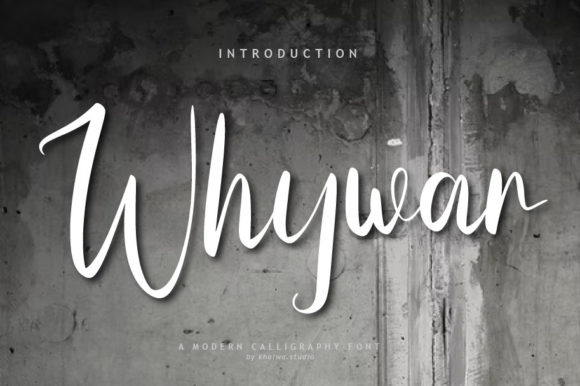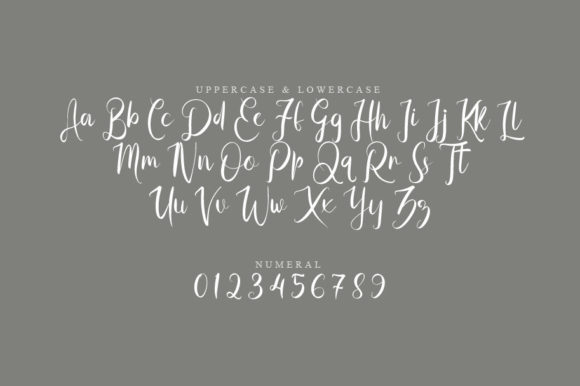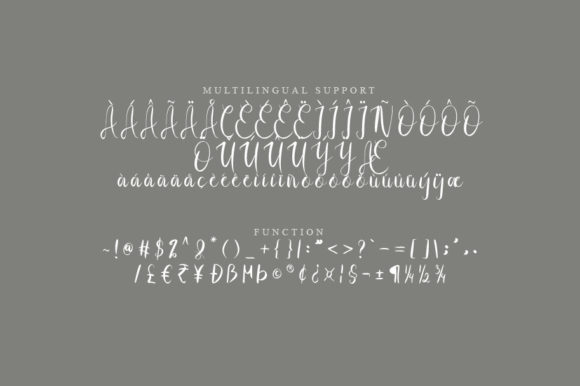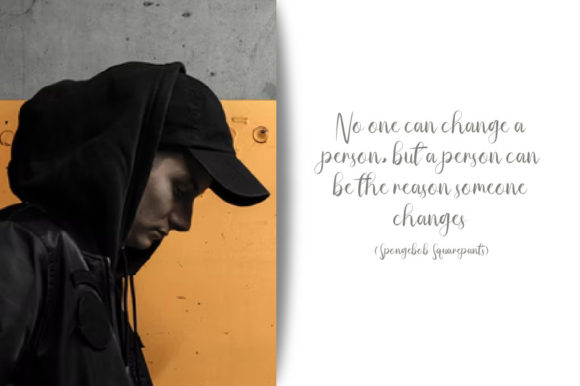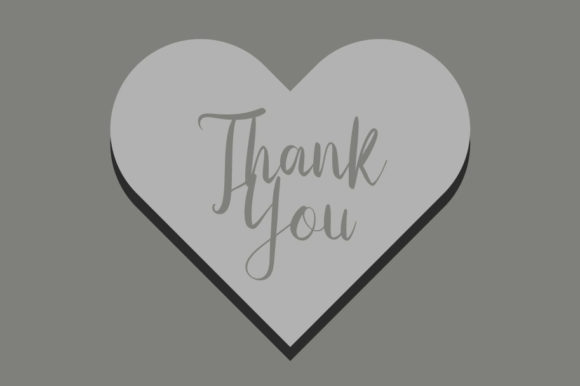
Whywar Script Font
About Whywar Script Font
Whywar Script is a lovely and timeless handwritten font. It is the best choice for creating eye catching logos, branding and quotes. Every letter has a unique and beautiful touch, which will make your design come alive!